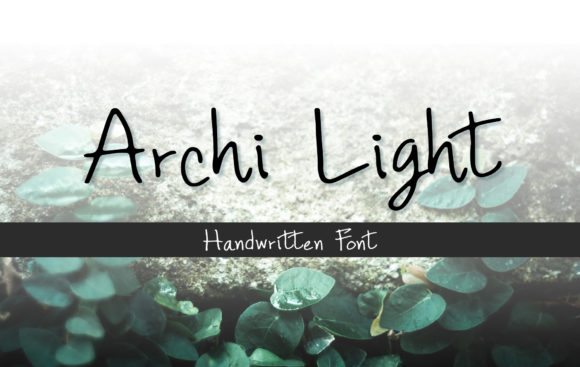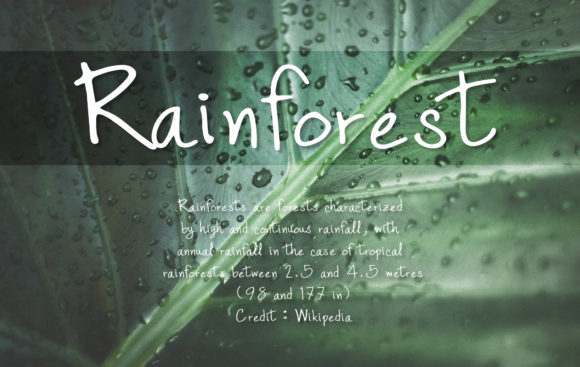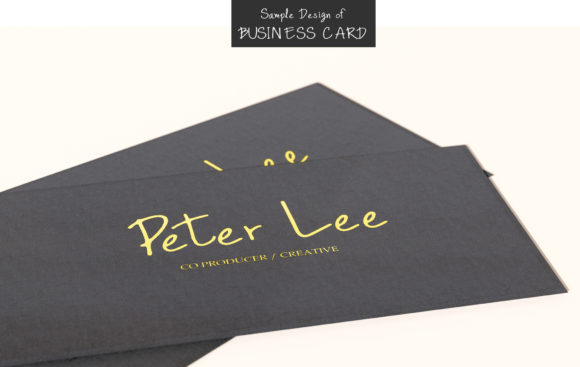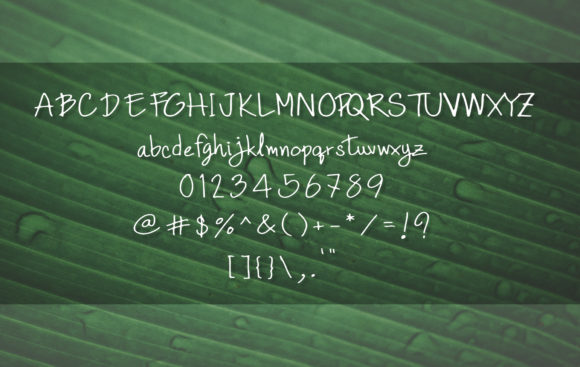
Archi Light Font
About Archi Light Font
Archi Light is a sweet and charming handwritten font with a beautiful feel. It will turn any design idea into a true stand out!